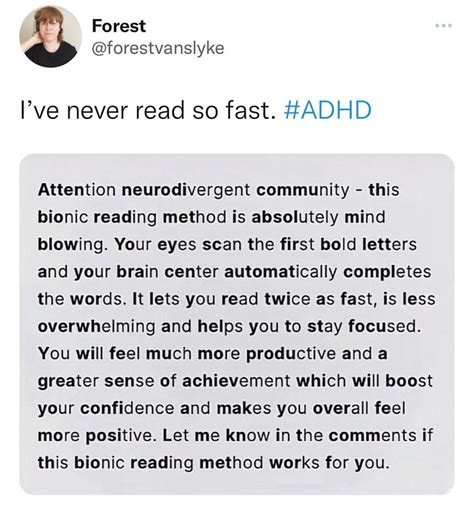
Adhd Reading Font Extension. Web hyperbold is an extensions which bolds the first half of mode words within readable text on a page. Web focus ex is a digital reading aid that allows users to change the typeface of a web page into a variable font called focus.
Web hyperbold is an extensions which bolds the first half of mode words within readable text on a page. Web adhd reader is a chrome extension that helps you read faster by highlighting beginning of every word on the websites. Web focus ex is a digital reading aid that allows users to change the typeface of a web page into a variable font called focus.
Web focus ex is a digital reading aid that allows users to change the typeface of a web page into a variable font called focus. Web hyperbold is an extensions which bolds the first half of mode words within readable text on a page. Web adhd reader is a chrome extension that helps you read faster by highlighting beginning of every word on the websites. Web focus ex is a digital reading aid that allows users to change the typeface of a web page into a variable font called focus.